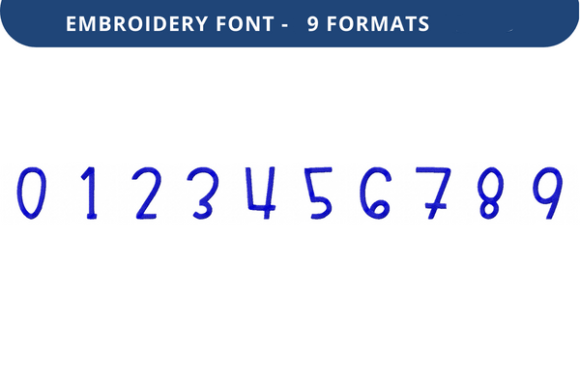
Play Pen Font 0 to 9: A Versatile Embroidery Font for Creative Expression
What Is Play Pen Font 0 to 9?
Play Pen Font 0 to 9 is a unique embroidery font designed to bring personality and style to fabric-based projects. This font features a playful, hand-drawn aesthetic that makes it ideal for adding charm and character to your creations. Each number from 0 to 9 is crafted with care, ensuring clarity and readability even when embroidered at smaller sizes.
Why Choose Play Pen Font 0 to 9?
Whether you're a beginner or an experienced embroiderer, this font offers a range of benefits. Its design allows for easy customization, making it perfect for personalizing items like clothing, bags, and home decor. The font's versatility means it can be used in various settings, from casual to professional, helping you create eye-catching designs that stand out.
Key Features of Play Pen Font 0 to 9
- High-quality design: Every character is meticulously crafted for optimal embroidery performance.
- Easy to use: Simple to apply with both beginners and advanced users.
- Customizable: Adjust the size and placement to fit your project perfectly.
Where Can You Use Play Pen Font 0 to 9?
Play Pen Font 0 to 9 is more than just a decorative tool—it’s a practical solution for a variety of creative needs. Here are some common uses:
Personal Projects
From custom T-shirts to personalized baby clothes, this font adds a fun and stylish touch. It’s especially useful for creating monogrammed items or special occasion gifts.
Professional Applications
Entrepreneurs and small business owners can use this font to brand their products. For example, adding a logo or company name in Play Pen Font 0 to 9 can make your merchandise more memorable and visually appealing.
Educational Uses
Teachers and educators can incorporate this font into classroom activities, such as creating custom labels for science projects or art displays. It also helps students learn about typography and design principles in a hands-on way.
Realistic Use Cases
Imagine using Play Pen Font 0 to 9 to create a birthday banner for a child’s party. The playful numbers add a festive vibe while maintaining a clean, readable look. Another example could be using the font to label gift bags for a wedding or event, ensuring each item is clearly marked without looking cluttered.
Important Considerations Before Using Play Pen Font 0 to 9
While Play Pen Font 0 to 9 is user-friendly, there are a few things to keep in mind:
Thread Choice
The type of thread you use can affect how the font looks. Opt for high-quality threads that are suitable for the fabric you’re working with. Bright colors may require multiple strands for better visibility.
Design Placement
Consider where you’ll place the embroidered text. Avoid areas that might cause the design to stretch or distort. Proper placement ensures the font remains legible and visually appealing.
Conclusion
Play Pen Font 0 to 9 is more than just a collection of numbers—it’s a versatile tool that empowers creators of all skill levels. Whether you’re crafting for personal use or professional purposes, this font offers a unique blend of style and functionality. With its ease of use and wide range of applications, it’s a valuable addition to any designer’s toolkit.